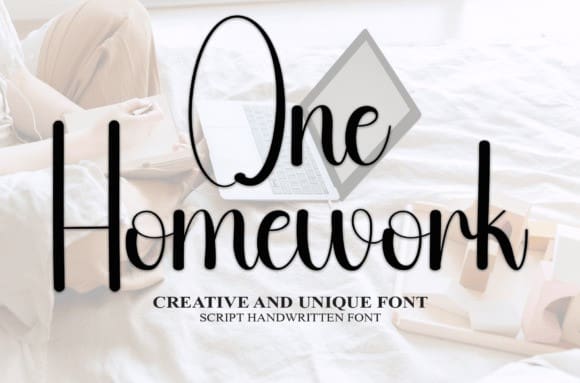
One Homework Font
One Homework Font is a sweet and friendly handwritten font. Fresh and neat, this font is ideal for writing wedding invitations, cards, or any other design that might need a fun touch!